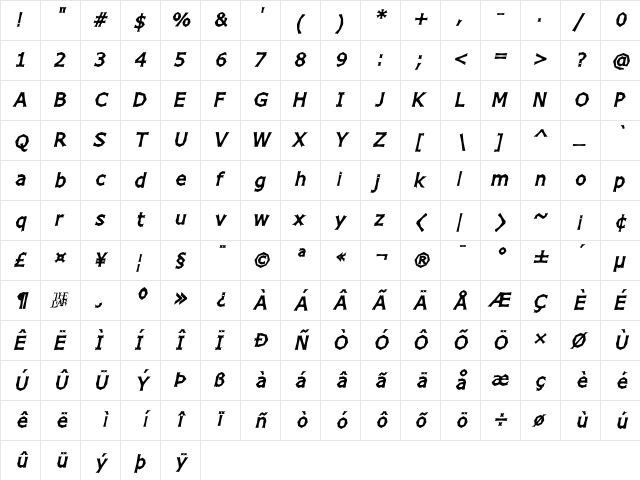
Chizz Italic
| Designer | Graham Meade & Apostrophe |
Design Context for Chizz Typeface
Chizz is a composed and adaptable typeface that performs quietly and consistently across a wide range of design contexts. The slanted form adds forward momentum and visual energy.
Pro Tip: Try Chizz for annotation and caption copy alongside an upright companion — the contrast in angle creates a dynamic but ordered typographic system.